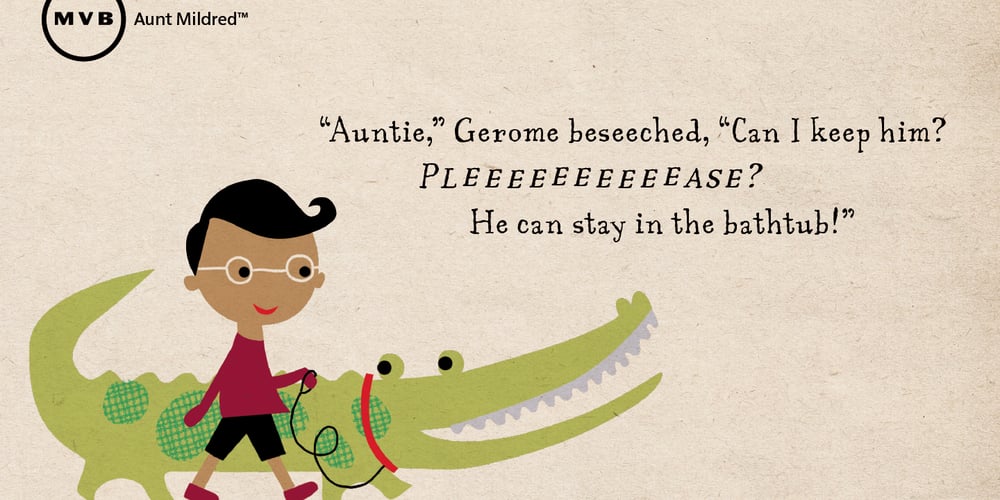
MVB Aunt Mildred Font Family was designed by Akemi Aoki and published by MVB. MVB Aunt Mildred contains 12 styles and family package options. MVB Aunt Mildred has a vintage charm that evokes hand-lettered postcards or advertising. Akemi Aoki drew the letterforms with a fine-tip felt pen and named it after her great aunt. Since its release in 1995, Aunt Mildred has been a popular choice for children’s books. Italics and bold weights have been added, making it even more useful for publications, packaging, and greetings of all sorts.